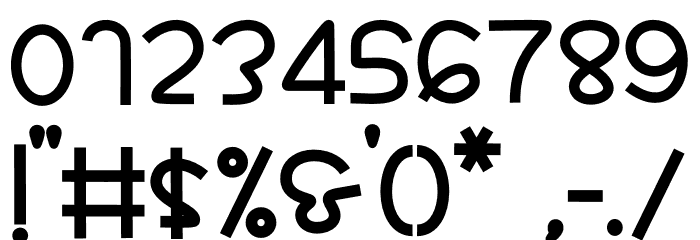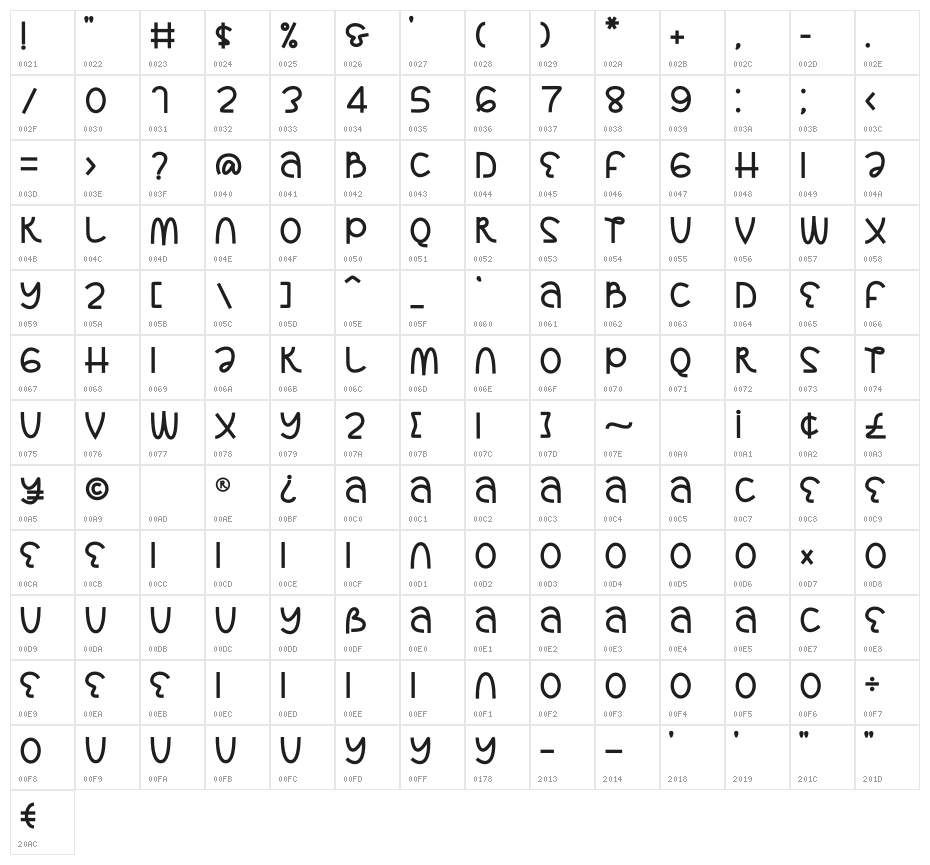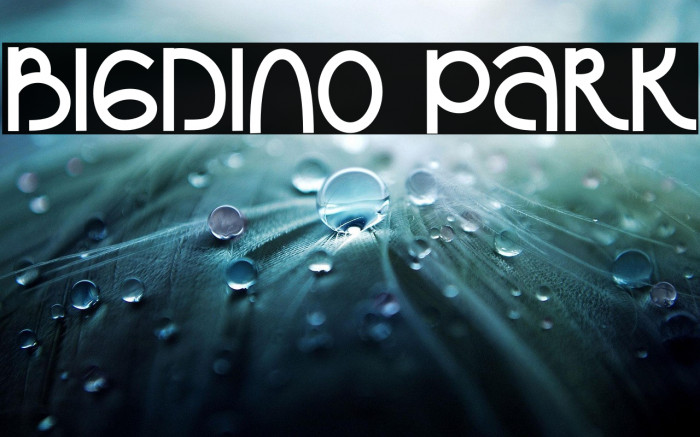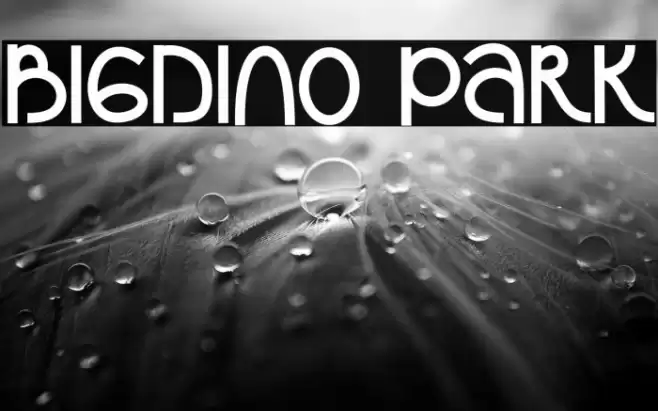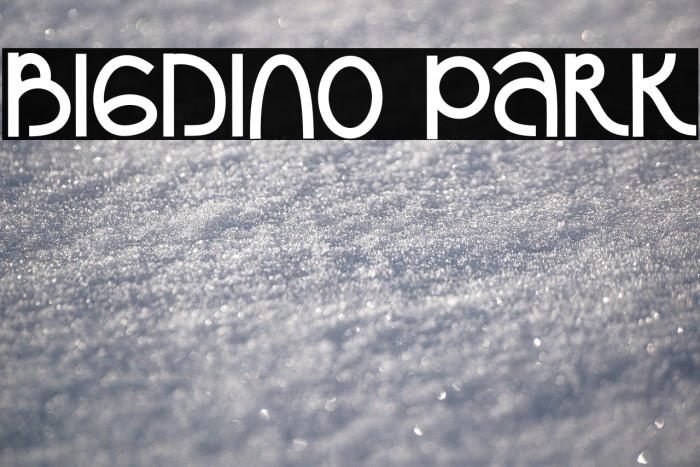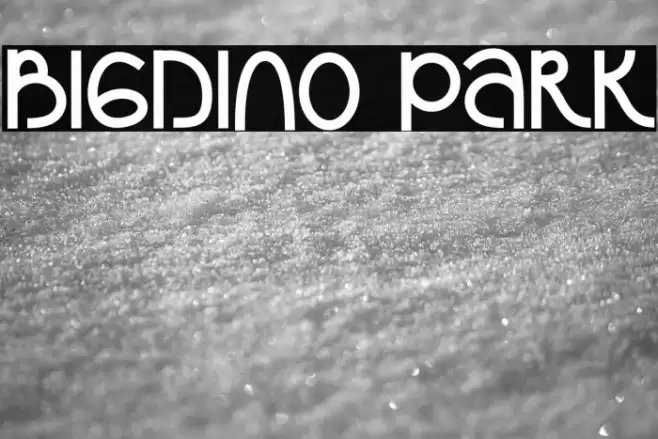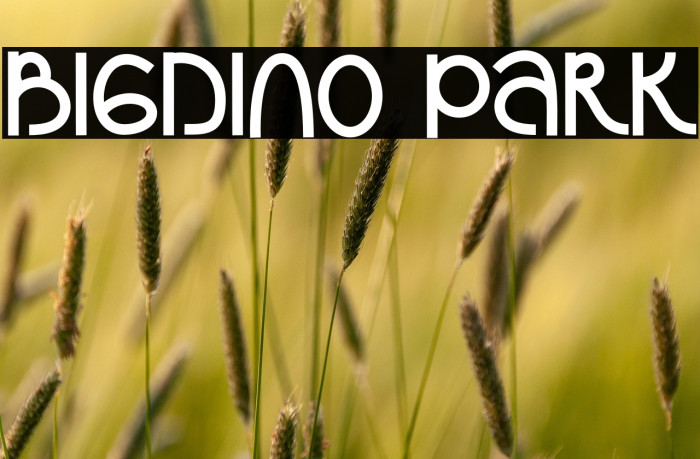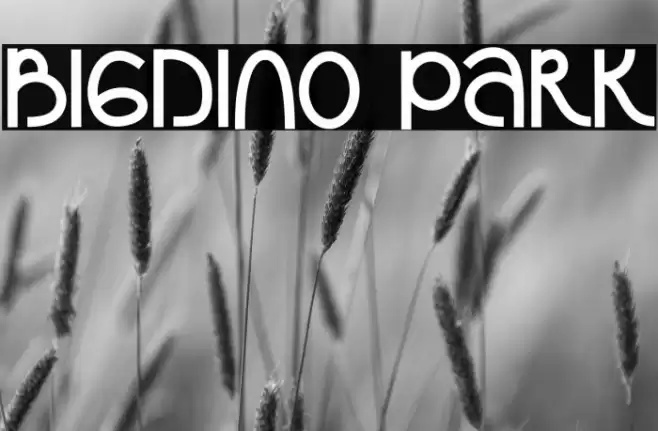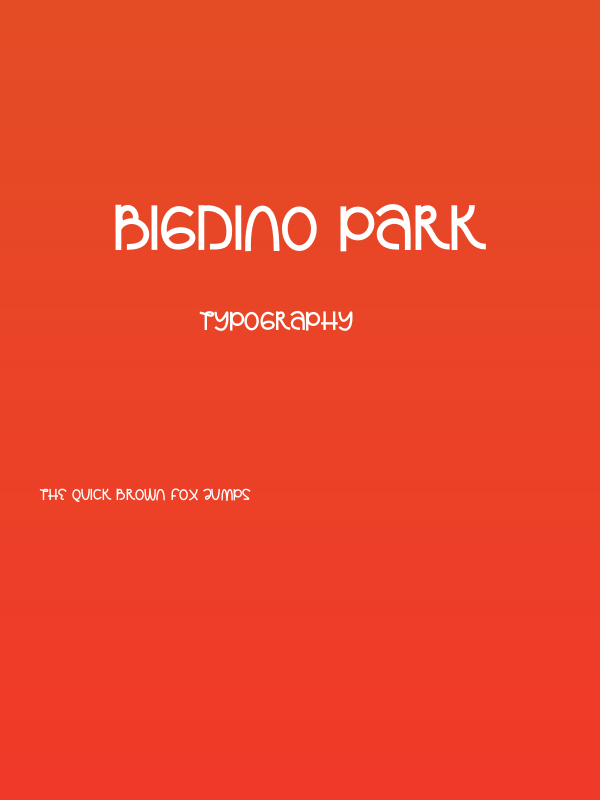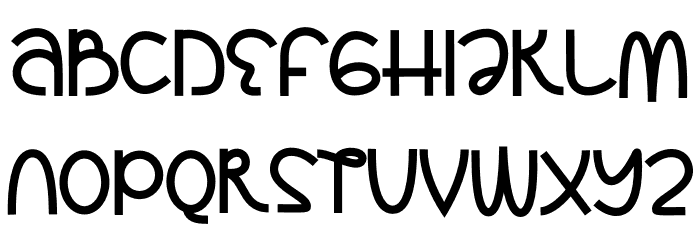
Bigdino Park Font
Bigdino Park Description
This font features a playful and bold design with a unique, rounded style. The characters are crafted with a consistent stroke width, giving it a uniform appearance. The uppercase letters have a whimsical touch, with some characters featuring unexpected curves and angles that add to its charm. The lowercase letters maintain this playful aesthetic, offering a cohesive look across the alphabet. Numbers and special characters are designed to match the overall style, making it suitable for creative and fun projects.